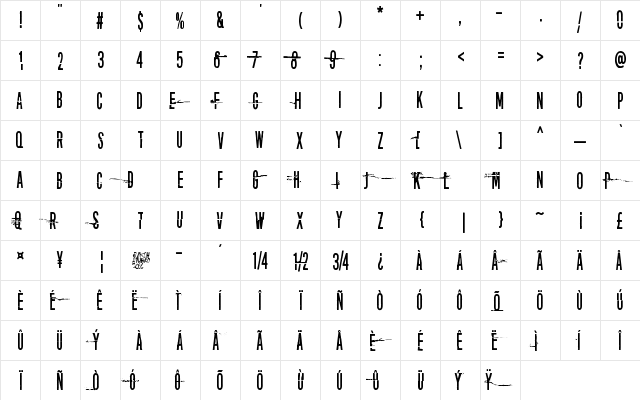
Disturbo Regular
Design Context for Disturbo Typeface
Disturbo is a composed and adaptable typeface that performs quietly and consistently across a wide range of design contexts.